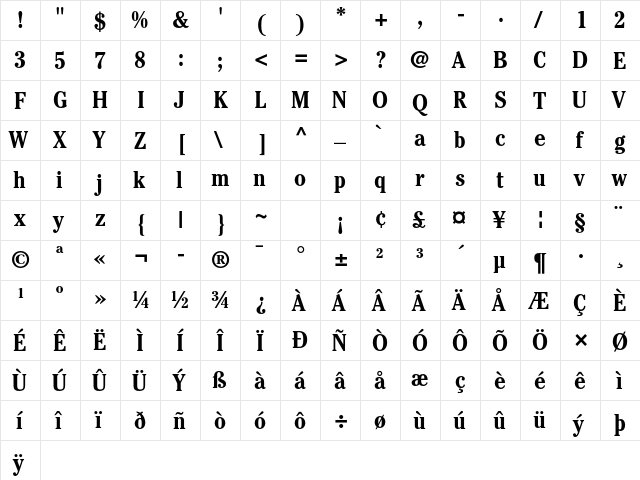
ITC Cheltenham Std Bold Condensed Font Preview
| Designer | Tony Stan |
Design Context for ITC Cheltenham Std Typeface
ITC Cheltenham Std takes a measured approach to typography — its balanced proportions and neutral character make it a reliable workhorse for both digital and print work. Its bold stroke weight gives it real presence on the page. The condensed width makes it efficient for tight spaces without sacrificing legibility.